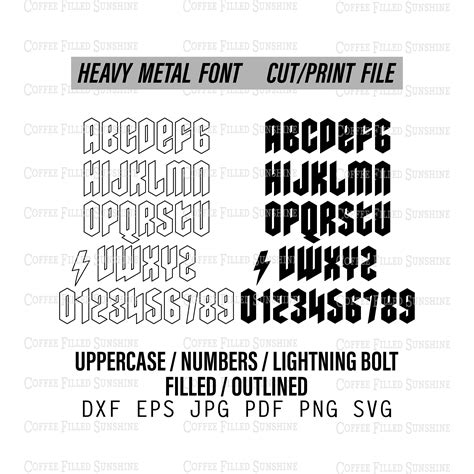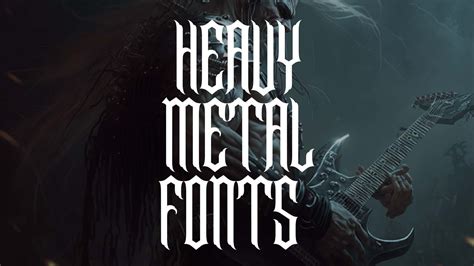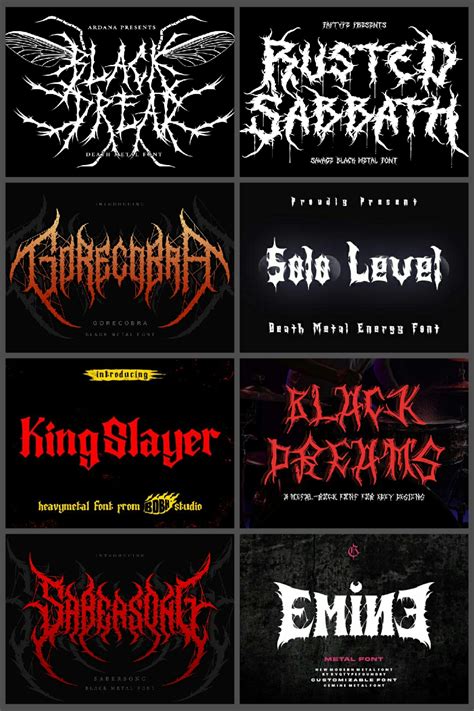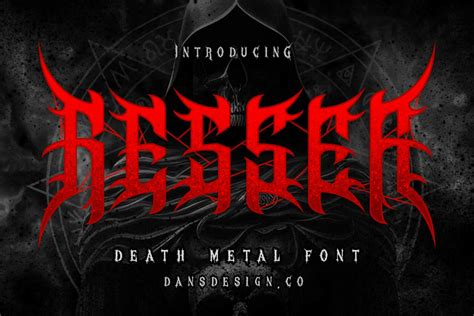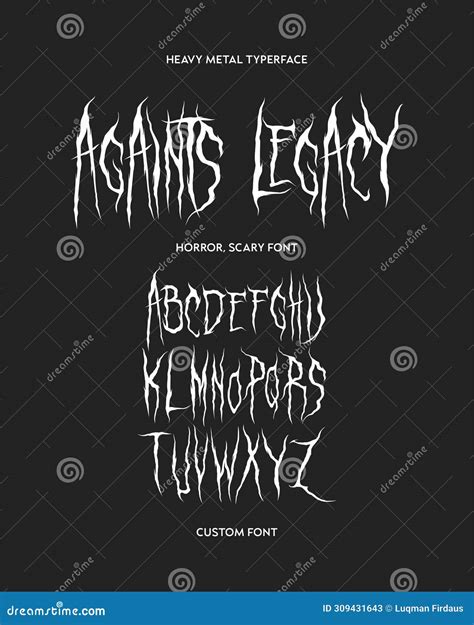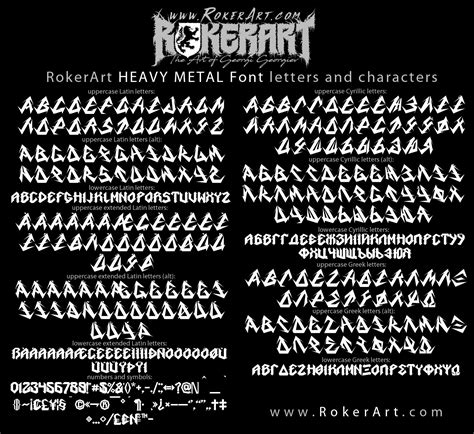
In the world of graphic design and typography, the choice of font can make or break a project. One style that has gained significant attention is the Heavy Metal Font. This font style is not just about aesthetics; it's about conveying a sense of power, intensity, and raw energy. Whether you're designing a logo, creating a poster, or developing a website, a Heavy Metal Font can add a unique and impactful touch to your work.
Understanding Heavy Metal Fonts
A Heavy Metal Font is characterized by its bold, thick lines and often aggressive or edgy appearance. These fonts are inspired by the heavy metal music genre, which is known for its intense and powerful sound. The typography reflects the same intensity, making it a popular choice for bands, music festivals, and any project that aims to evoke a sense of strength and rebellion.
There are several key characteristics that define a Heavy Metal Font:
- Bold and Thick Lines: These fonts often feature thick, bold lines that create a strong visual impact.
- Sharp Edges: The letters often have sharp, angular edges that add to the aggressive feel.
- Distorted Shapes: Some Heavy Metal Fonts feature distorted or exaggerated shapes, adding to the overall edgy aesthetic.
- Heavy Weight: The font weight is typically very heavy, making it stand out against any background.
Popular Heavy Metal Fonts
There are numerous Heavy Metal Fonts available, each with its unique style and characteristics. Here are some of the most popular ones:
| Font Name | Description | Use Cases |
| Black Metal | A font with sharp, angular edges and a very heavy weight, perfect for conveying a sense of darkness and intensity. | Band logos, album covers, and concert posters. |
| Death Metal | This font features distorted shapes and a very aggressive appearance, ideal for projects that need to convey a sense of brutality. | Heavy metal album covers, band merchandise, and event promotions. |
| Thrash Metal | A font with thick, bold lines and a slightly more refined look compared to other Heavy Metal Fonts, suitable for projects that need a balance of intensity and readability. | Music festival posters, band logos, and merchandise. |
| Power Metal | This font has a more elegant and powerful appearance, with sharp edges and a heavy weight, perfect for projects that need to convey a sense of grandeur and strength. | Band logos, album covers, and concert promotions. |
How to Choose the Right Heavy Metal Font
Choosing the right Heavy Metal Font depends on the specific needs of your project. Here are some factors to consider:
- Purpose: Determine the purpose of your project. Is it for a band logo, an album cover, or a concert poster? Different projects may require different styles of Heavy Metal Fonts.
- Audience: Consider your target audience. What kind of message do you want to convey? A more aggressive font might be suitable for a death metal band, while a more refined font might be better for a power metal band.
- Readability: Ensure that the font is readable, especially if it will be used in smaller sizes or on complex backgrounds.
- Compatibility: Make sure the font is compatible with the software and platforms you will be using. Some fonts may not work well with certain design tools or web browsers.
When selecting a Heavy Metal Font, it's also important to consider the overall design of your project. The font should complement the other design elements, such as colors, images, and layouts. A well-chosen font can enhance the overall aesthetic and make your project stand out.
💡 Note: Always preview the font in the context of your project to ensure it meets your design goals.
Designing with Heavy Metal Fonts
Once you've chosen the right Heavy Metal Font, the next step is to integrate it into your design. Here are some tips for designing with Heavy Metal Fonts:
- Contrast: Use contrasting colors to make the font stand out. Dark backgrounds with light text or vice versa can create a strong visual impact.
- Spacing: Pay attention to letter spacing and line height. Heavy Metal Fonts can sometimes look cramped, so adjusting the spacing can improve readability.
- Effects: Consider adding effects like shadows, gradients, or textures to enhance the font's appearance. These effects can add depth and dimension to your design.
- Consistency: Maintain consistency in your use of the font. If you're using it for a logo, make sure it's consistent across all branding materials.
Designing with Heavy Metal Fonts can be a fun and creative process. Experiment with different styles and effects to find the perfect look for your project. Remember, the key is to create a design that is both visually appealing and effective in conveying your message.
💡 Note: Always test your design on different devices and platforms to ensure it looks good everywhere.
Heavy Metal Fonts in Web Design
Heavy Metal Fonts are not just for print design; they can also be used effectively in web design. When used correctly, these fonts can add a unique and impactful touch to your website. Here are some tips for using Heavy Metal Fonts in web design:
- Headings: Use Heavy Metal Fonts for headings and titles to create a strong visual impact. These fonts are perfect for grabbing attention and setting the tone for your content.
- Navigation: Consider using a Heavy Metal Font for your navigation menu. This can add a distinctive look to your website and make it stand out from the competition.
- Buttons: Use these fonts for call-to-action buttons to make them more noticeable and enticing.
- Backgrounds: Be cautious with backgrounds. Heavy Metal Fonts can sometimes be difficult to read against complex backgrounds, so choose simple, contrasting colors.
When using Heavy Metal Fonts in web design, it's important to ensure that the font is web-safe and compatible with all browsers. Some fonts may not render correctly on all devices, so it's essential to test your design thoroughly.
💡 Note: Always provide fallback fonts in case the Heavy Metal Font does not load correctly.
Heavy Metal Fonts in Branding
Heavy Metal Fonts can play a crucial role in branding, especially for bands, music festivals, and other related projects. A well-chosen font can help establish a strong brand identity and make your project stand out. Here are some tips for using Heavy Metal Fonts in branding:
- Logo Design: Use a Heavy Metal Font for your logo to create a powerful and memorable brand identity. The font should reflect the essence of your brand and be easily recognizable.
- Merchandise: Incorporate the font into your merchandise, such as t-shirts, posters, and stickers. This can help reinforce your brand and create a cohesive look across all your products.
- Consistency: Maintain consistency in your use of the font across all branding materials. This includes your website, social media, and promotional materials.
- Versatility: Choose a font that is versatile enough to be used in various contexts. Some Heavy Metal Fonts may look great on a poster but not on a business card, so consider the different applications of your brand.
When using Heavy Metal Fonts in branding, it's important to consider the overall aesthetic of your brand. The font should complement your brand's colors, imagery, and messaging. A well-chosen font can help create a strong and cohesive brand identity that resonates with your audience.
💡 Note: Always get feedback from your target audience to ensure the font is well-received.
Heavy Metal Fonts in Print Design
Heavy Metal Fonts are particularly effective in print design, where they can create a strong visual impact and convey a sense of intensity and power. Here are some tips for using Heavy Metal Fonts in print design:
- Posters: Use these fonts for concert posters, album covers, and event promotions. The bold and aggressive appearance of these fonts can help grab attention and create a memorable design.
- Flyers: Incorporate the font into flyers and handouts to create a cohesive look and reinforce your brand identity.
- Business Cards: Consider using a Heavy Metal Font for your business cards to make a strong first impression. The font should be legible and complement your brand's overall aesthetic.
- Magazines: Use these fonts for headlines and feature articles to create a bold and impactful look. The font should be large enough to be easily readable and stand out against the background.
When using Heavy Metal Fonts in print design, it's important to consider the printing process. Some fonts may not print well on certain materials or with certain inks, so it's essential to test your design thoroughly. Additionally, ensure that the font is legible at the size it will be printed, as some Heavy Metal Fonts can be difficult to read in smaller sizes.
💡 Note: Always proofread your design to ensure there are no errors or inconsistencies.
Incorporating Heavy Metal Fonts into your print design can add a unique and impactful touch to your project. Whether you're designing a poster, a flyer, or a business card, these fonts can help create a strong visual impact and convey a sense of intensity and power.
Heavy Metal Fonts are a powerful tool in the world of graphic design and typography. Whether you're designing a logo, creating a poster, or developing a website, these fonts can add a unique and impactful touch to your work. By understanding the characteristics of Heavy Metal Fonts and how to use them effectively, you can create designs that stand out and convey a sense of power and intensity.
From choosing the right font to integrating it into your design, there are many factors to consider when working with Heavy Metal Fonts. By following the tips and guidelines outlined in this post, you can create designs that are both visually appealing and effective in conveying your message. Whether you're a graphic designer, a web developer, or a branding specialist, Heavy Metal Fonts can be a valuable addition to your design toolkit.
In summary, Heavy Metal Fonts are a versatile and impactful choice for a wide range of design projects. By understanding their characteristics and how to use them effectively, you can create designs that stand out and convey a sense of power and intensity. Whether you’re working on a print design, a web design, or a branding project, Heavy Metal Fonts can add a unique and memorable touch to your work.